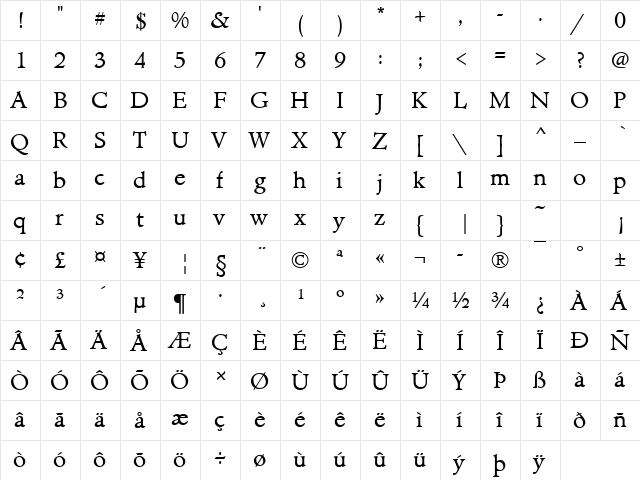
MinisterT Regular
Design Context for MinisterT Typeface
MinisterT is a composed and adaptable typeface that performs quietly and consistently across a wide range of design contexts.